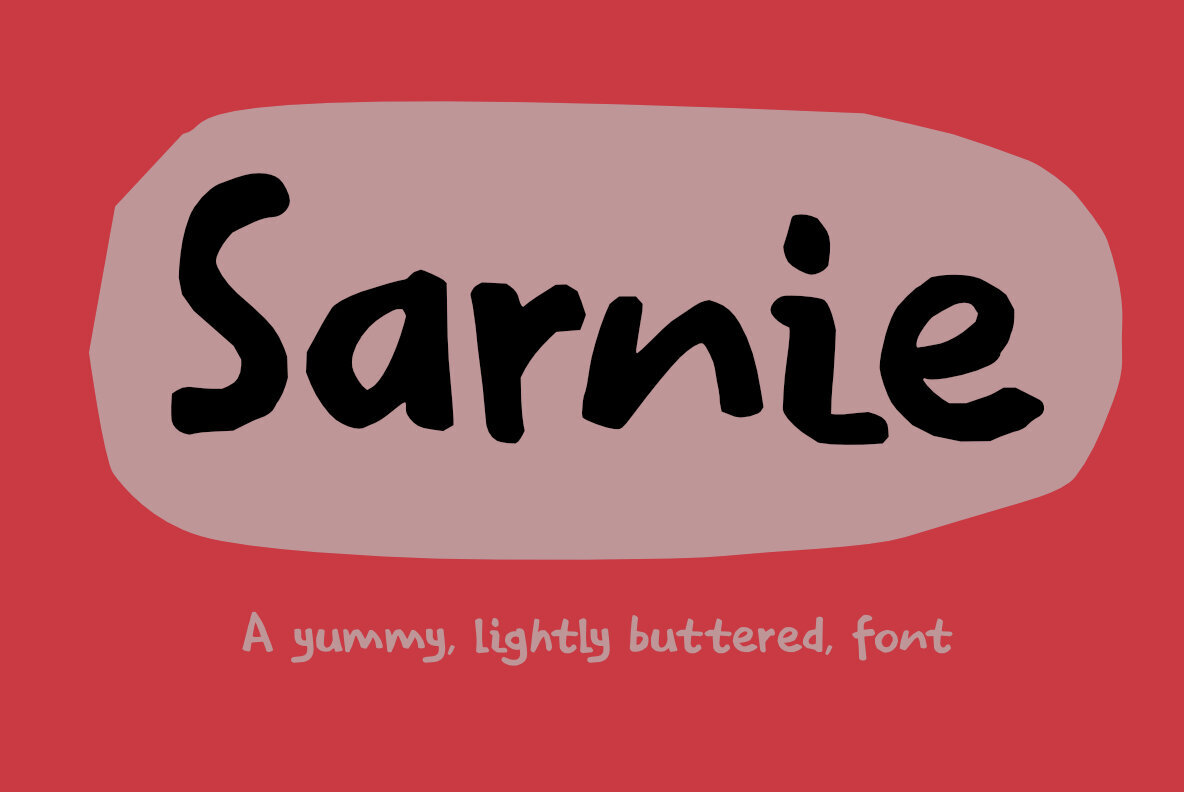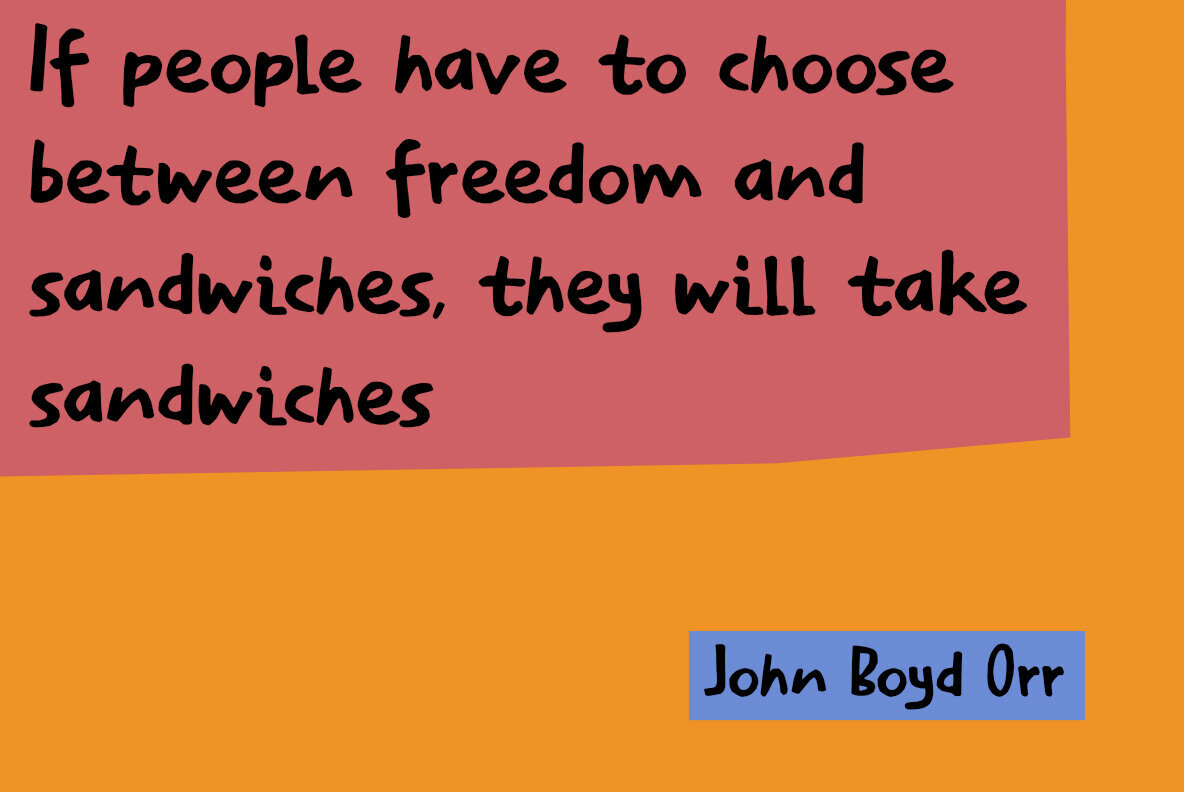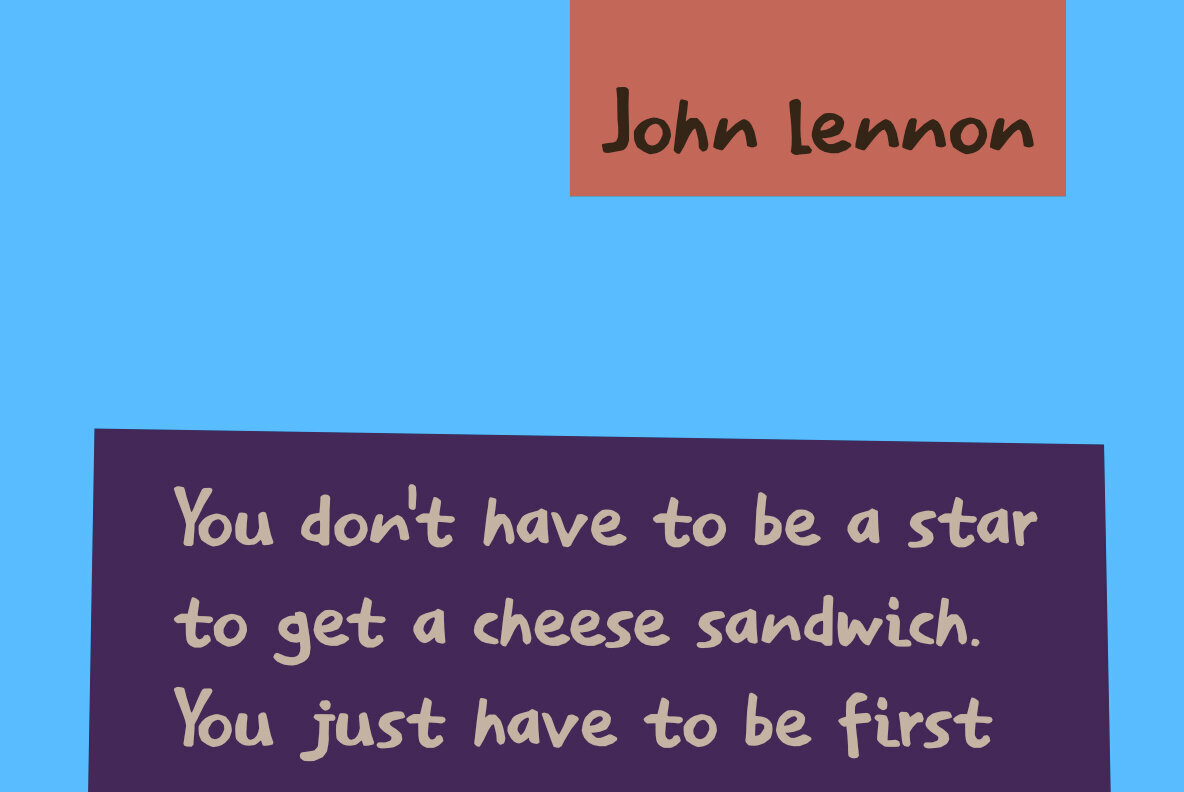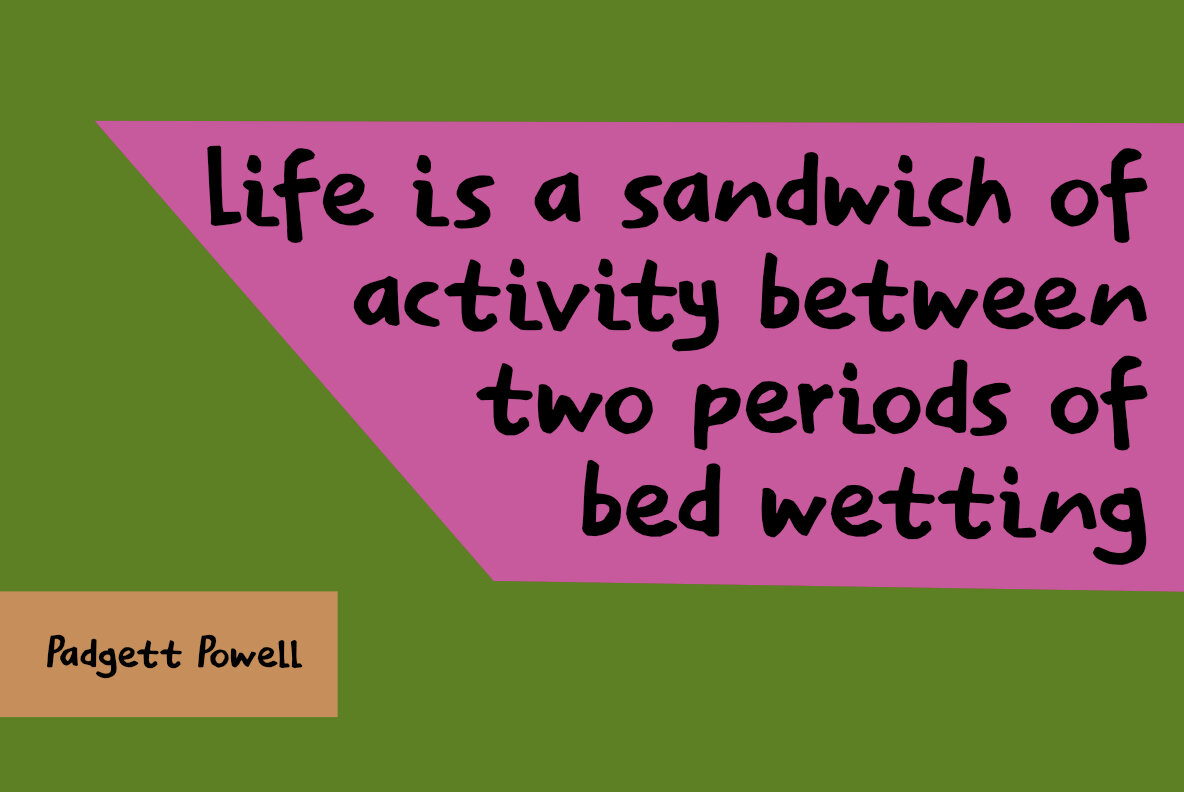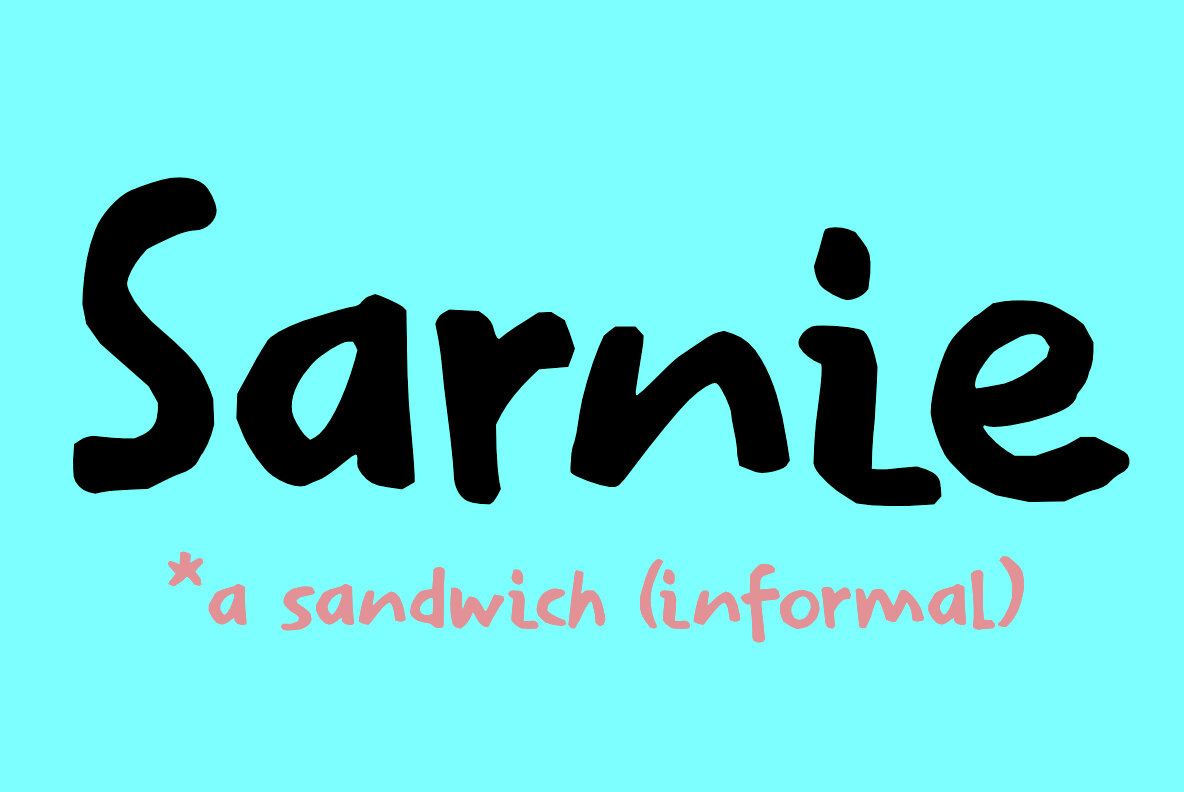
Sarnie Font
Sarnie is a uniquely crafted handmade font that captures the essence of British slang and charm. The name "Sarnie," meaning sandwich, reflects the playful and casual nature of this typeface. Created with a Sharpie pen, Sarnie exudes a raw and organic feel, offering a personal touch that stands out in digital and print projects.
The font's distinctive style makes it perfect for designers seeking something a bit offbeat and with personality. Whether you're working on posters, packaging, or branding materials, Sarnie adds an informal, yet compelling element to your designs. Its hand-drawn quality provides warmth and authenticity, making it ideal for projects that require a touch of quirkiness while maintaining clarity and legibility.